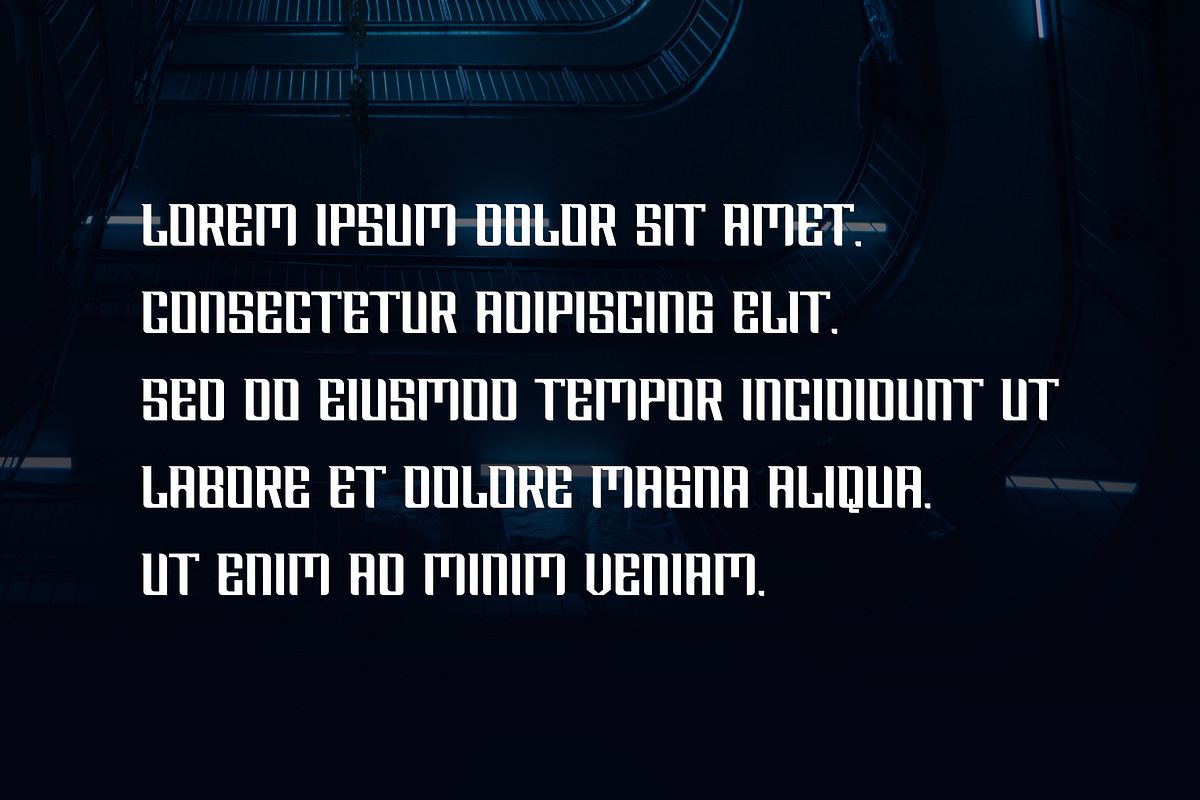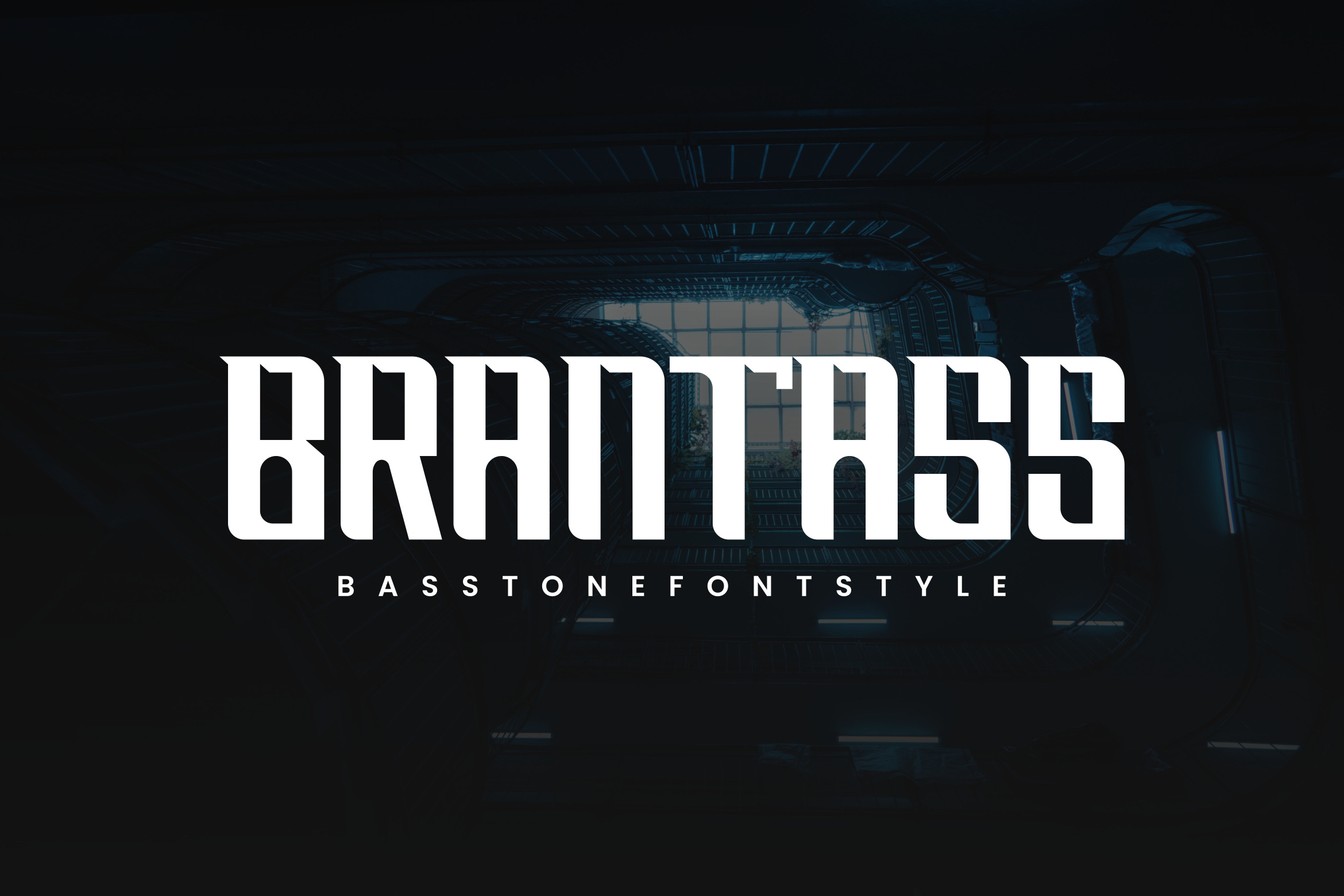
Basstone Modern Font Style.
Basstone Modern Font Style – related to travel, history & culture in the present/modern way,lifestyle designs such as logos, title, magazine, and more.